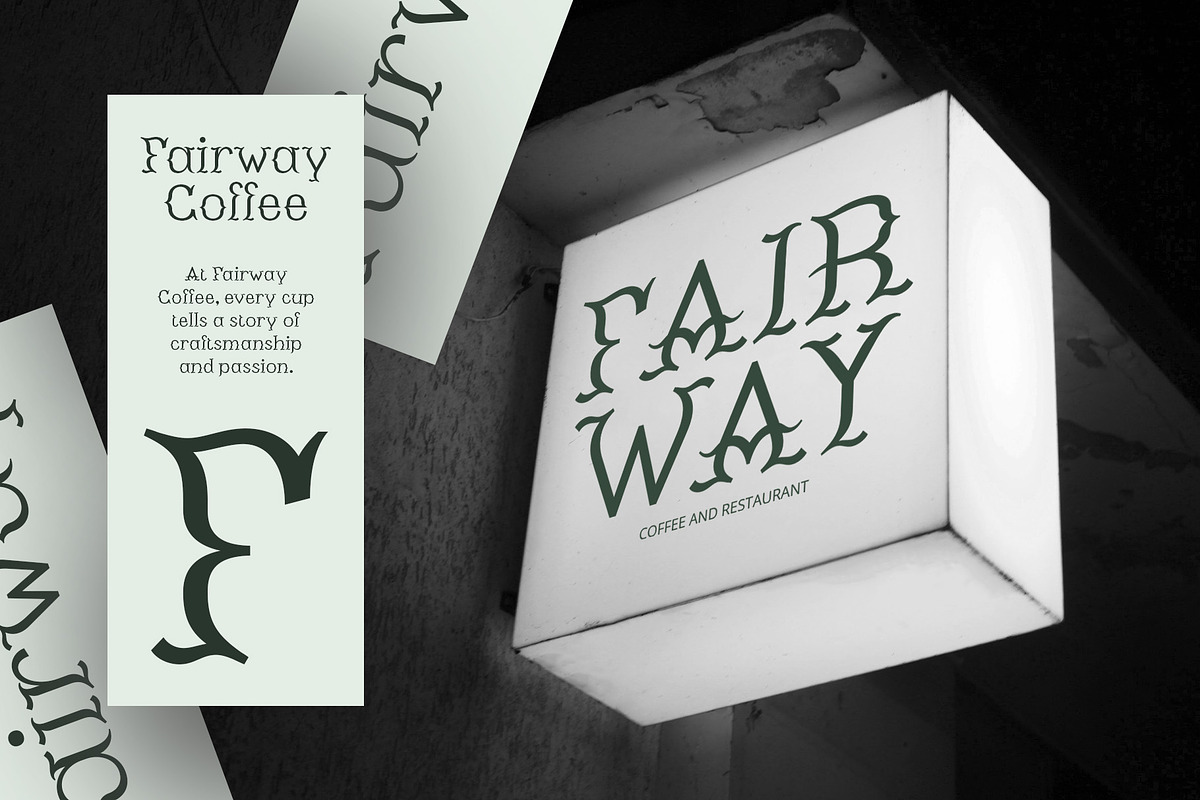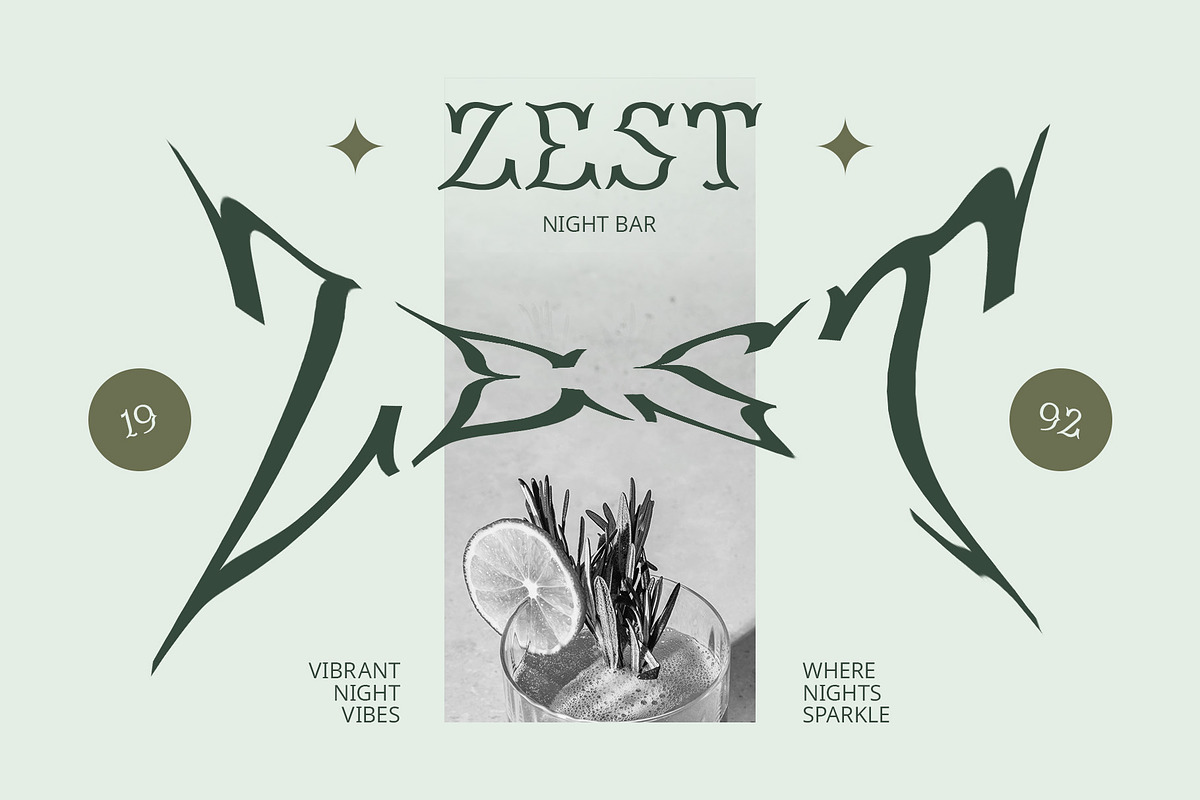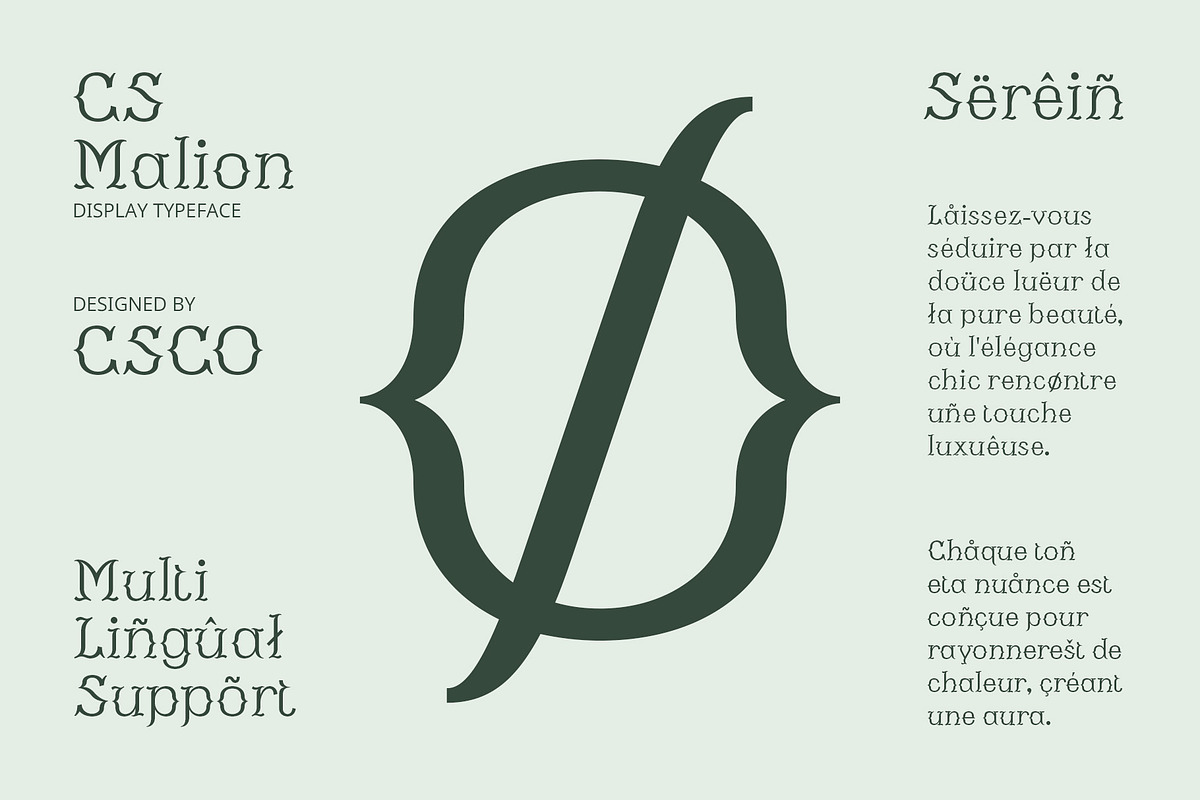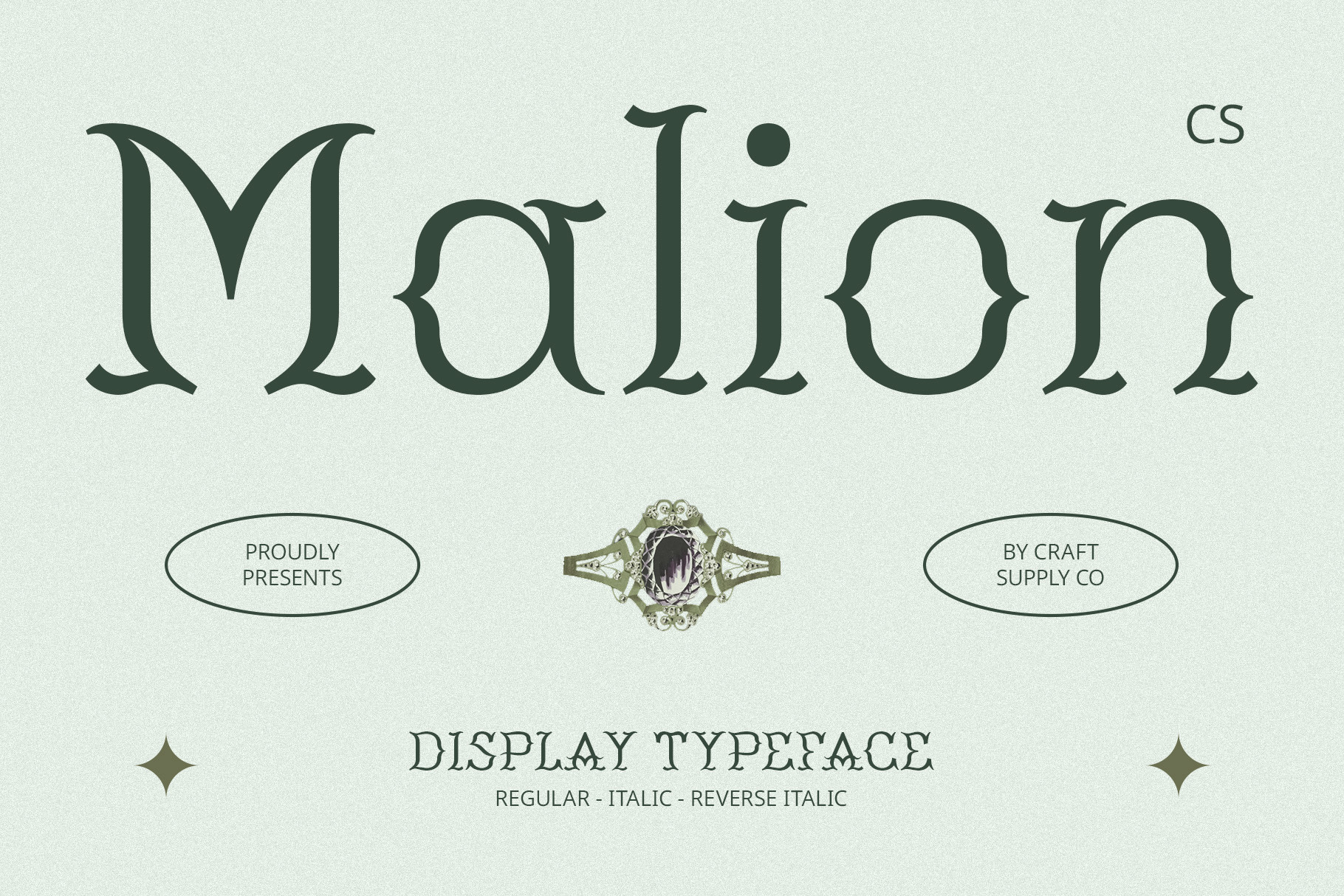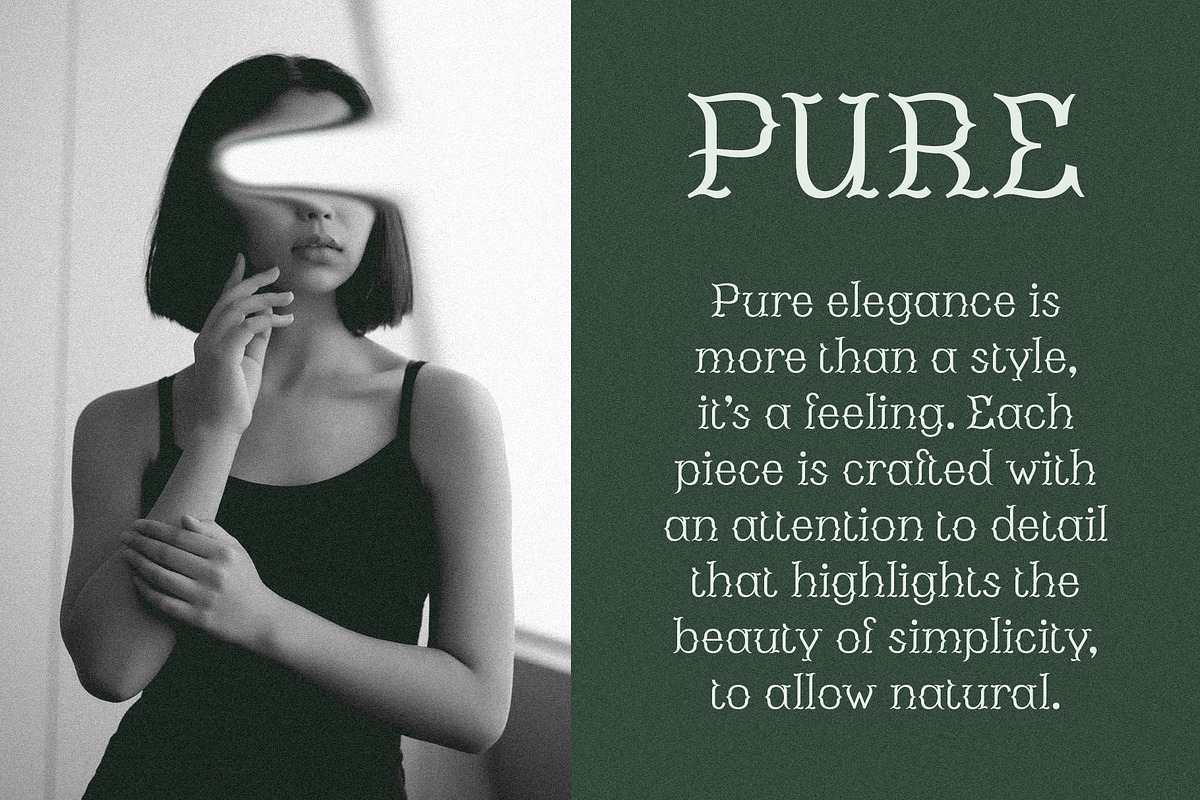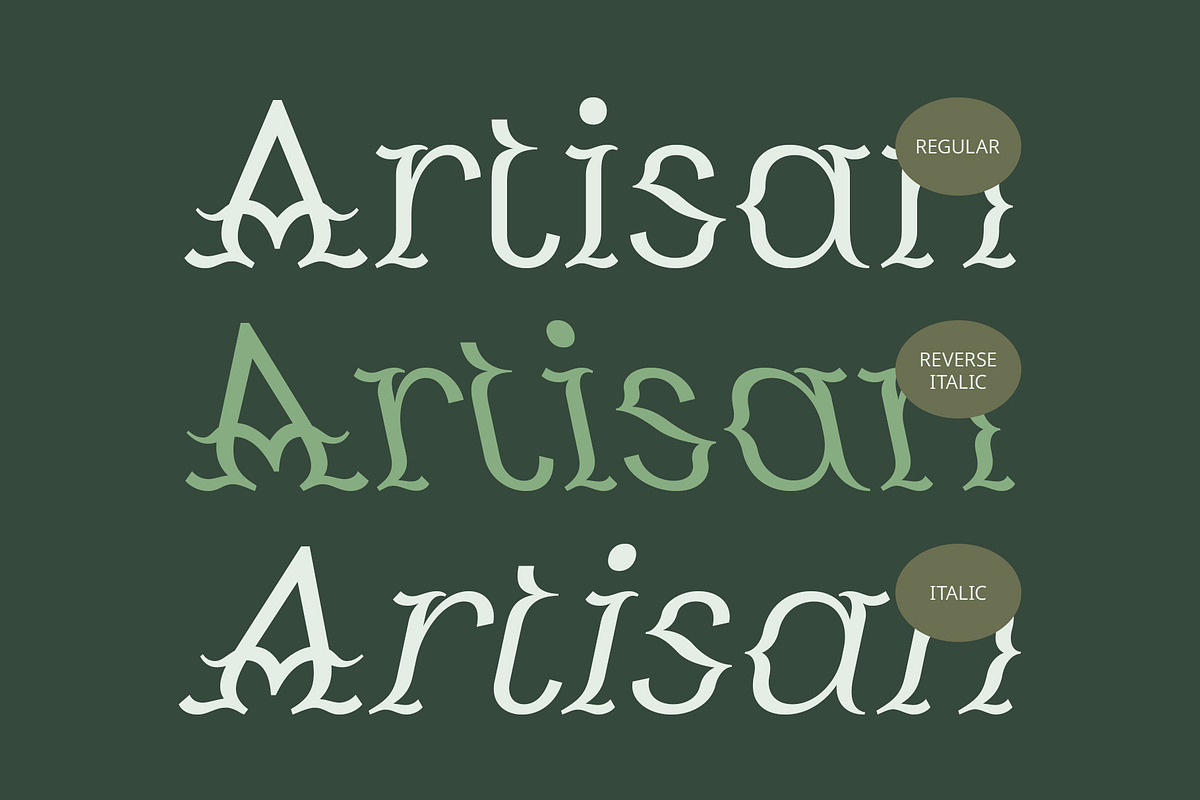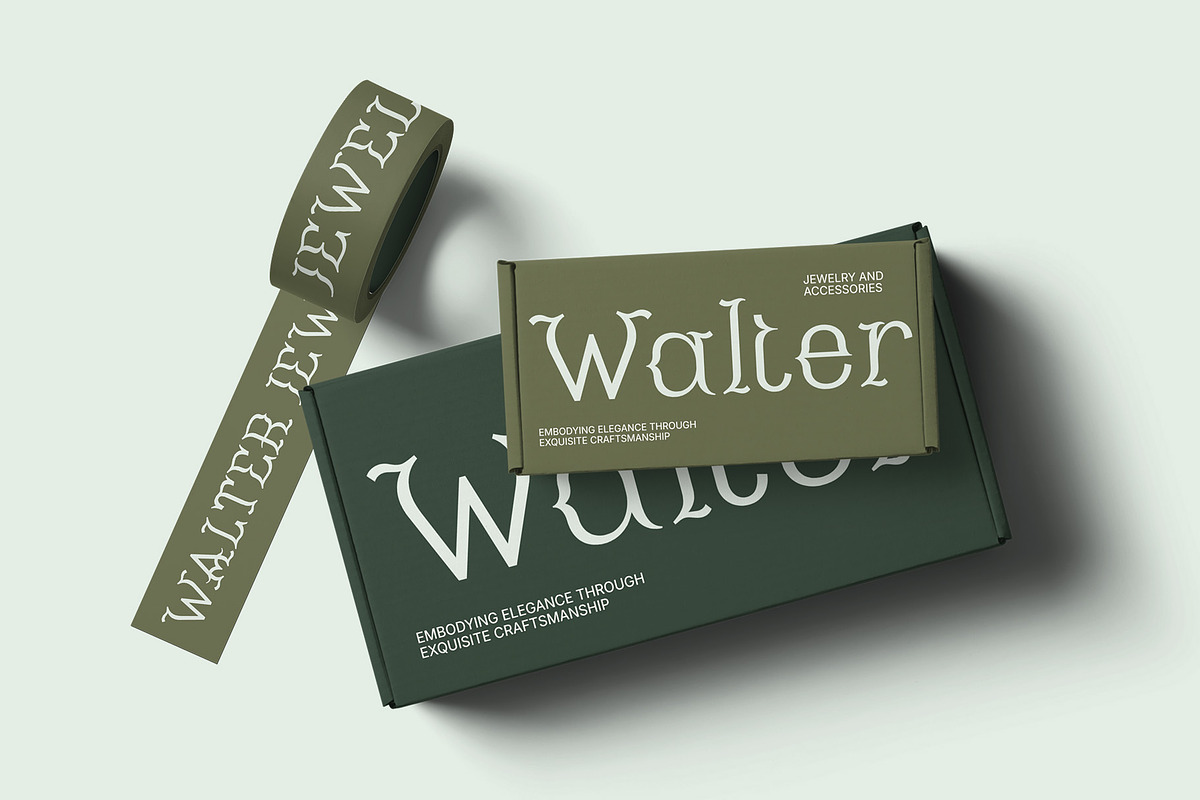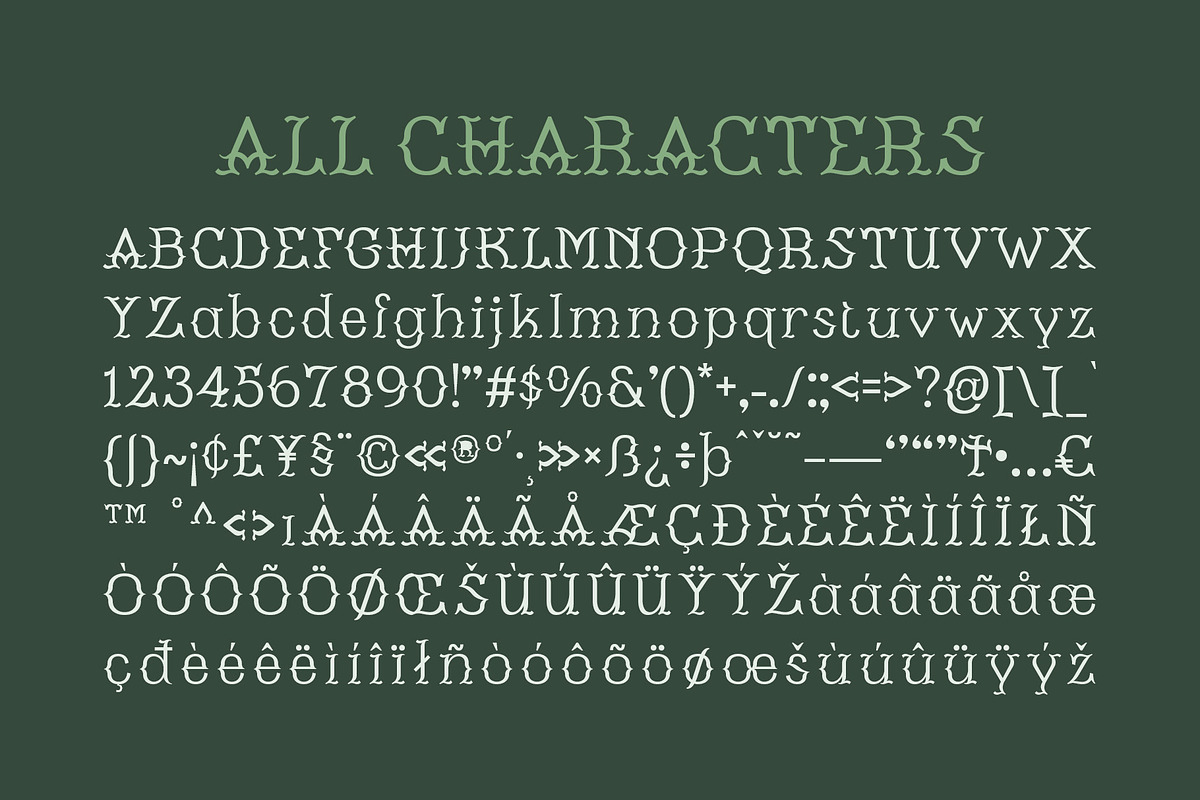
CS Malion – Classic Font
CS Malion – Classic Font: A Masterpiece of Timeless Elegance and Luxury
Sophisticated Display Font with a Luxurious Touch CS Malion – Classic Font is a display typeface that radiates sophistication and elegance, designed to add a sense of luxury to any project. With its graceful letterforms, fine detailing, and refined proportions, CS Malion captures the essence of high-end design. Perfect for premium branding, formal invitations, and upscale editorial layouts, this font lends an air of exclusivity and prestige to any visual presentation, making it an essential choice for those aiming to convey quality and class.
Balanced Proportions for a Harmonious Aesthetic The font’s meticulously crafted balance of thick and thin strokes brings a harmonious, timeless aesthetic to each letter. CS Malion’s proportions reflect a blend of classic structure and modern refinement, creating a sense of visual stability and polished beauty. This balanced approach ensures versatility across a range of applications, from luxury branding to more formal design elements, without sacrificing readability or elegance.
Detailed Decorative Elements for Rich Visual Appeal CS Malion incorporates subtle decorative elements and elegant curves that add a touch of opulence. The font’s intricate details invite close inspection, rewarding the viewer with a richer, more immersive visual experience. These thoughtful embellishments make it suitable for projects where every detail matters, such as fine stationery, upscale packaging, and exclusive brand identities.
- CS Malion Regular
- CS Malion Italic
- CS Malion Reverse Italic